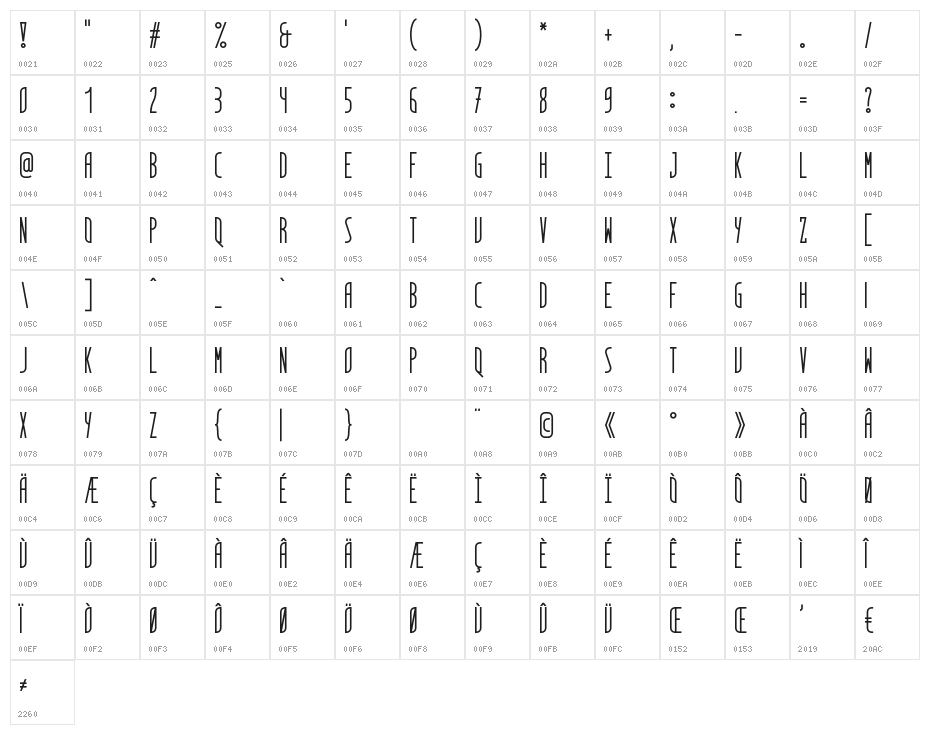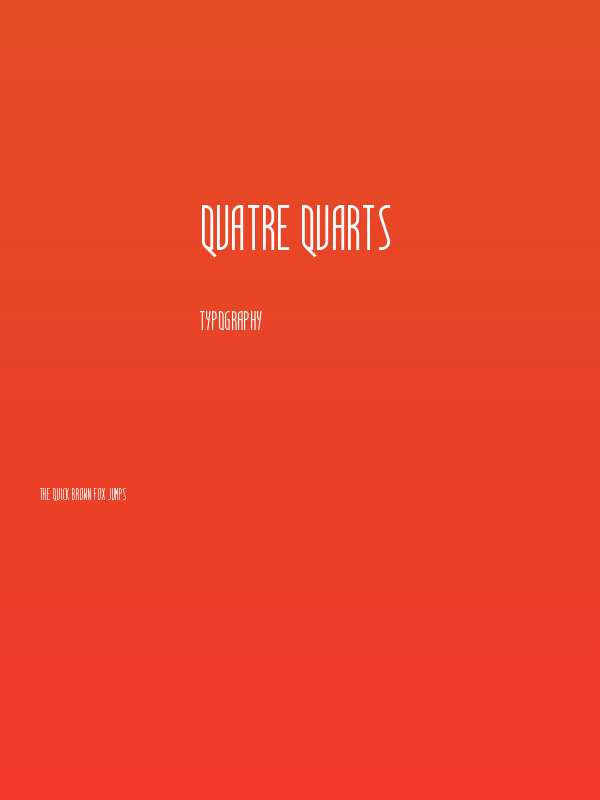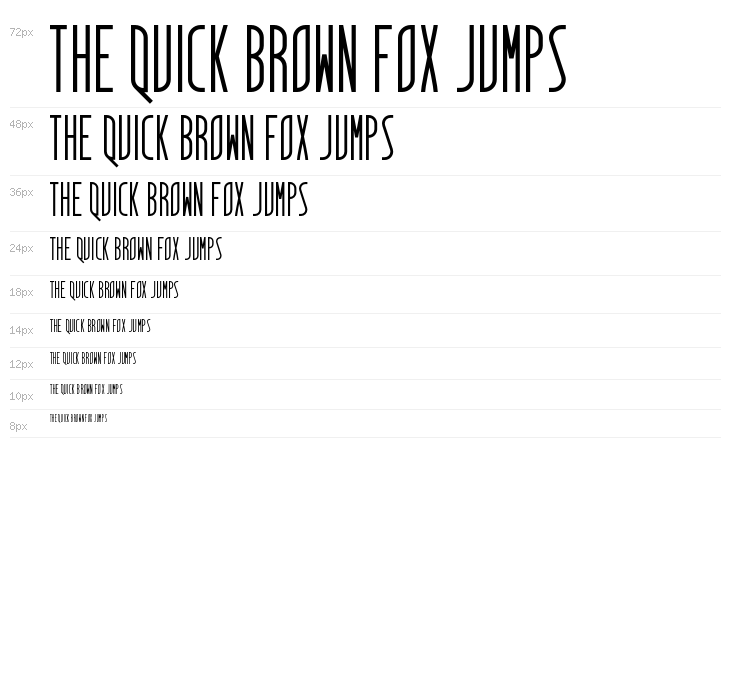
Quatre Quarts Font
Quatre Quarts Description
This font features a tall, narrow design with clean, straight lines and a modern aesthetic. The uppercase letters are uniform in height, creating a cohesive and structured appearance. The lowercase letters maintain the same narrow style, contributing to the font's sleek and elegant look. The numerals are consistent with the overall design, offering a streamlined and contemporary feel. Special characters are distinct and maintain the font's geometric style, making it versatile for various design needs.
| Proposed Projects | Ideal for branding, editorial design, posters, and modern web design projects. |